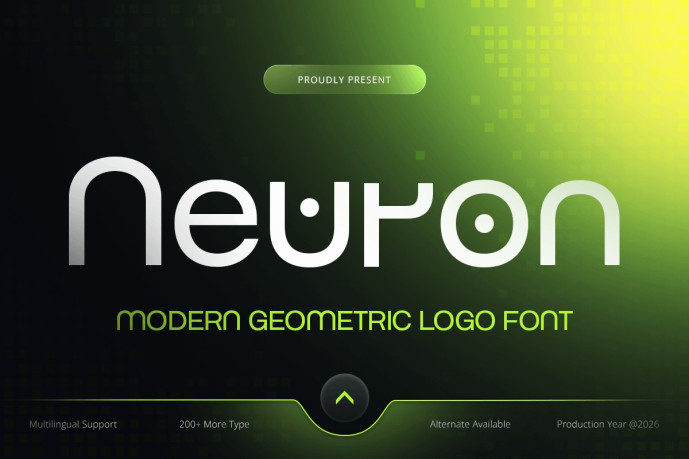
Neuron – Logo Font
Neuron – Modern Geometric Logo Font is a clean geometric logo font designed for modern branding, corporate identity, startup logos, and contemporary visual communication. Inspired by geometric precision and minimalist design principles, Neuron delivers a refined typographic style that helps brands communicate clarity, innovation, and professionalism.
Featuring precise geometric letterforms, balanced proportions, and a modern minimalist structure, Neuron creates a strong visual identity while maintaining exceptional readability. Its clean construction makes it an excellent choice for logo design, branding systems, marketing materials, and digital experiences where simplicity and consistency matter.
Whether you’re building a startup identity, designing a corporate logo, developing a technology brand, or creating modern marketing assets, Neuron provides the versatile typography needed to establish a memorable and trustworthy brand presence.
Neuron Font Features
Character Set: Uppercase, lowercase, numbers, symbols, and punctuation
Modern geometric letterforms optimized for logo design and branding